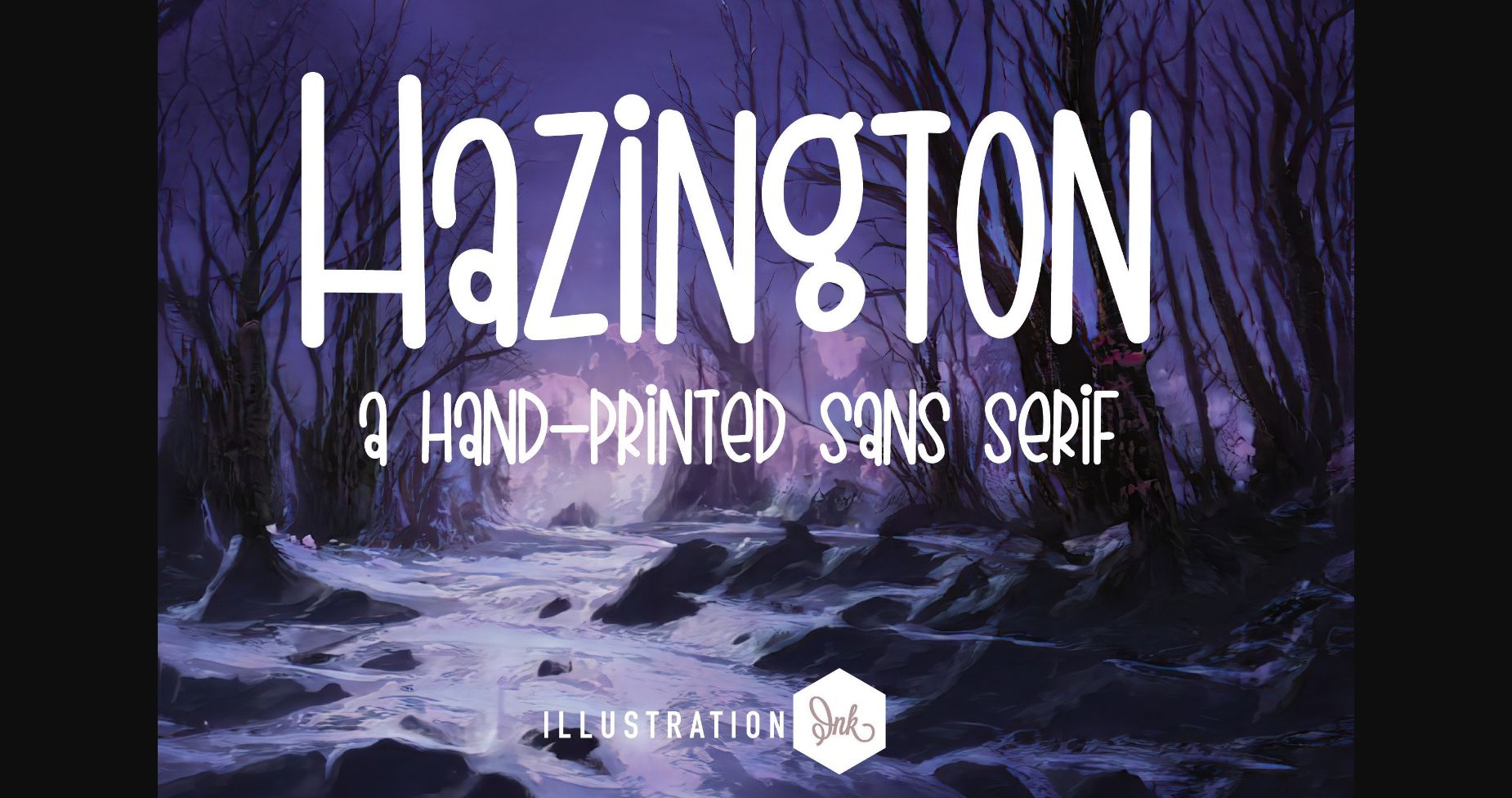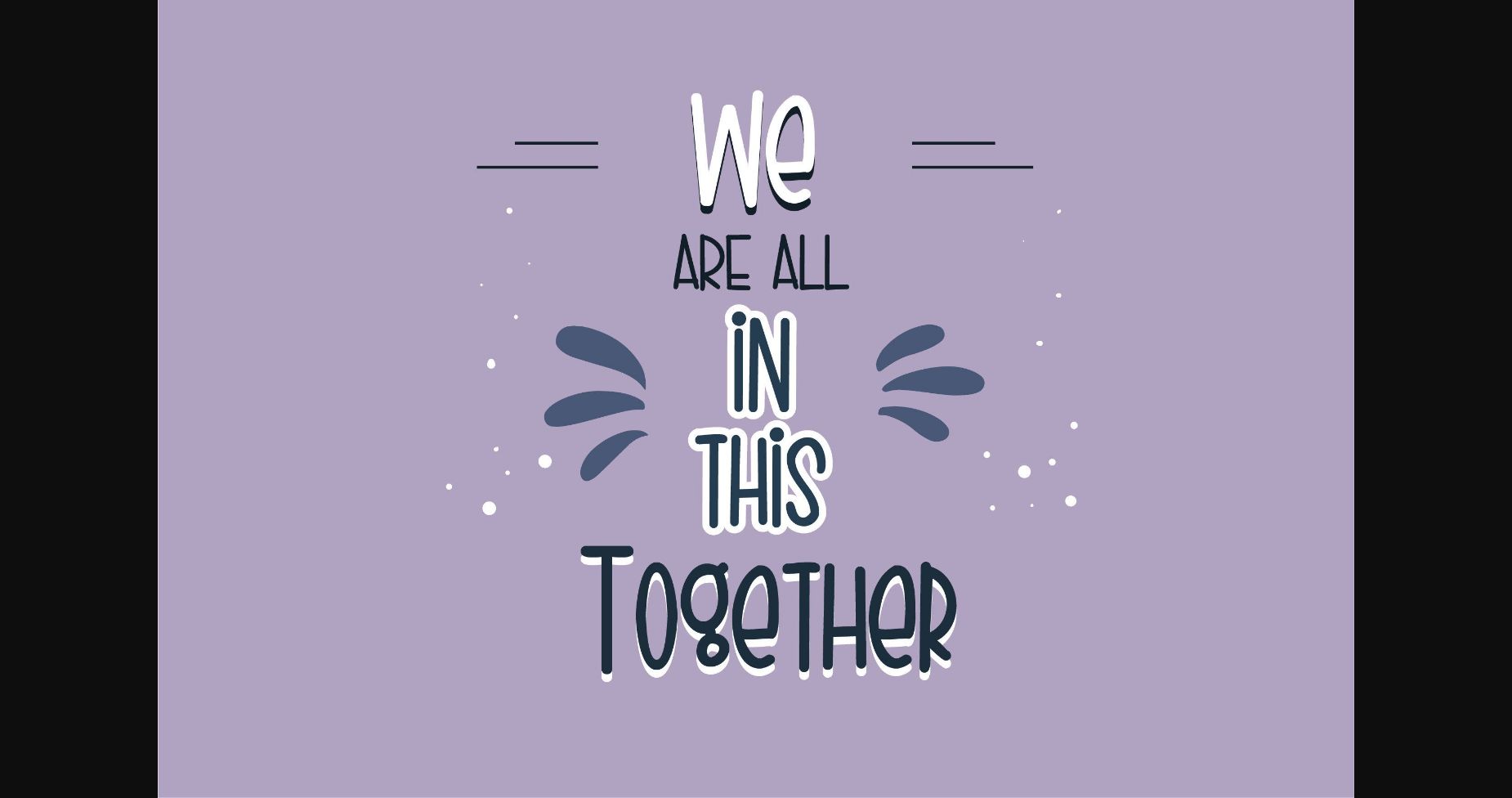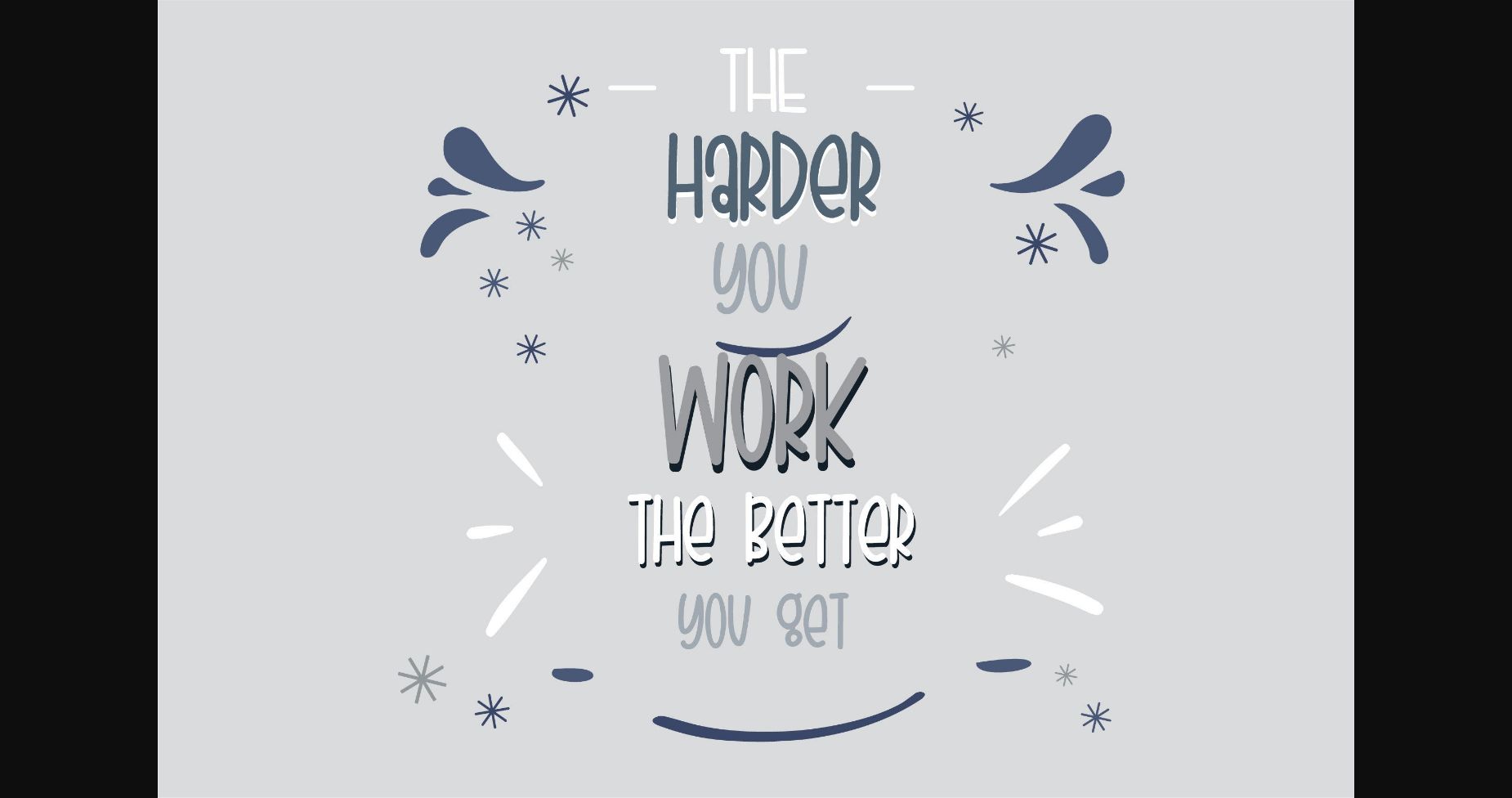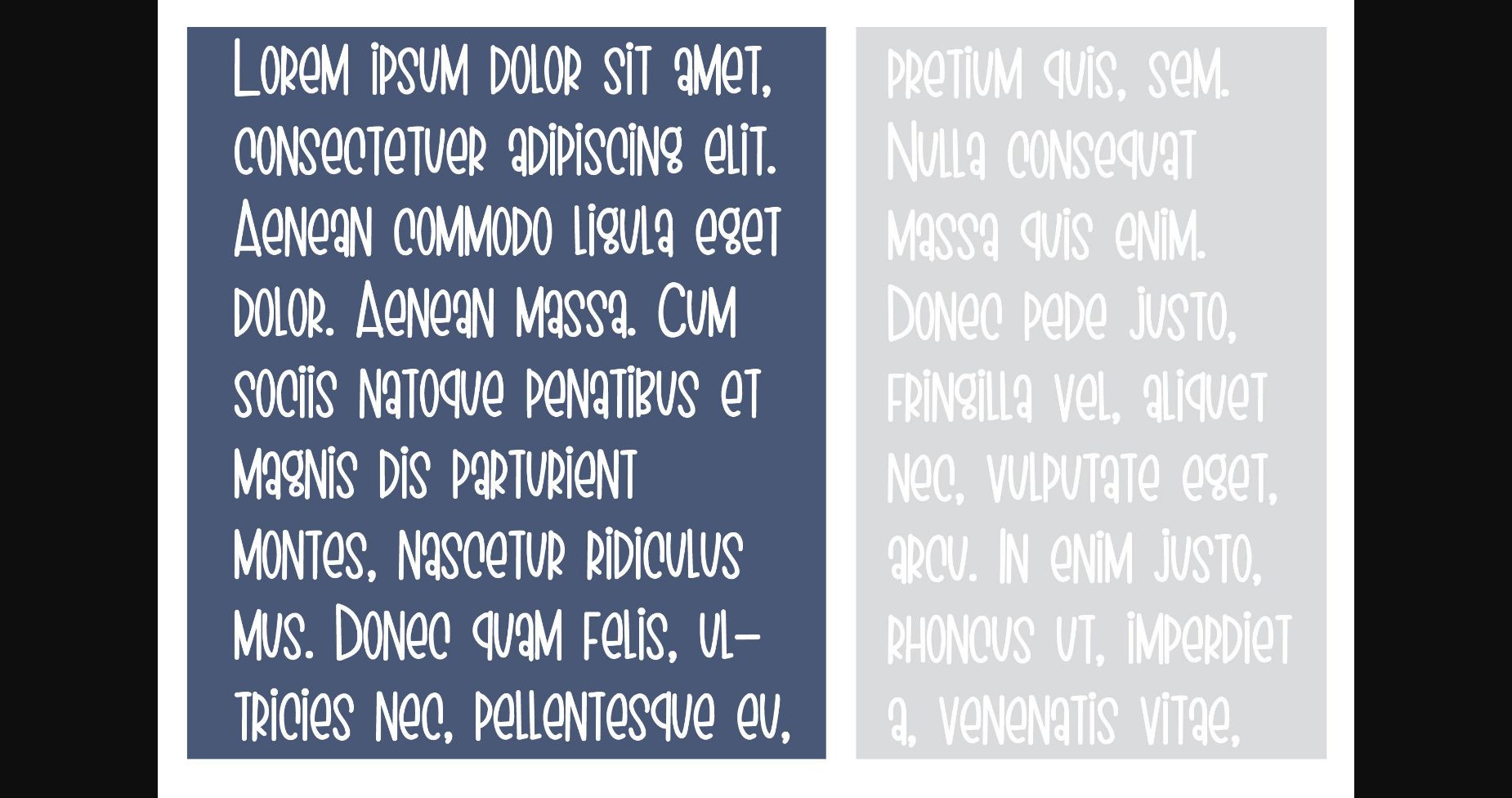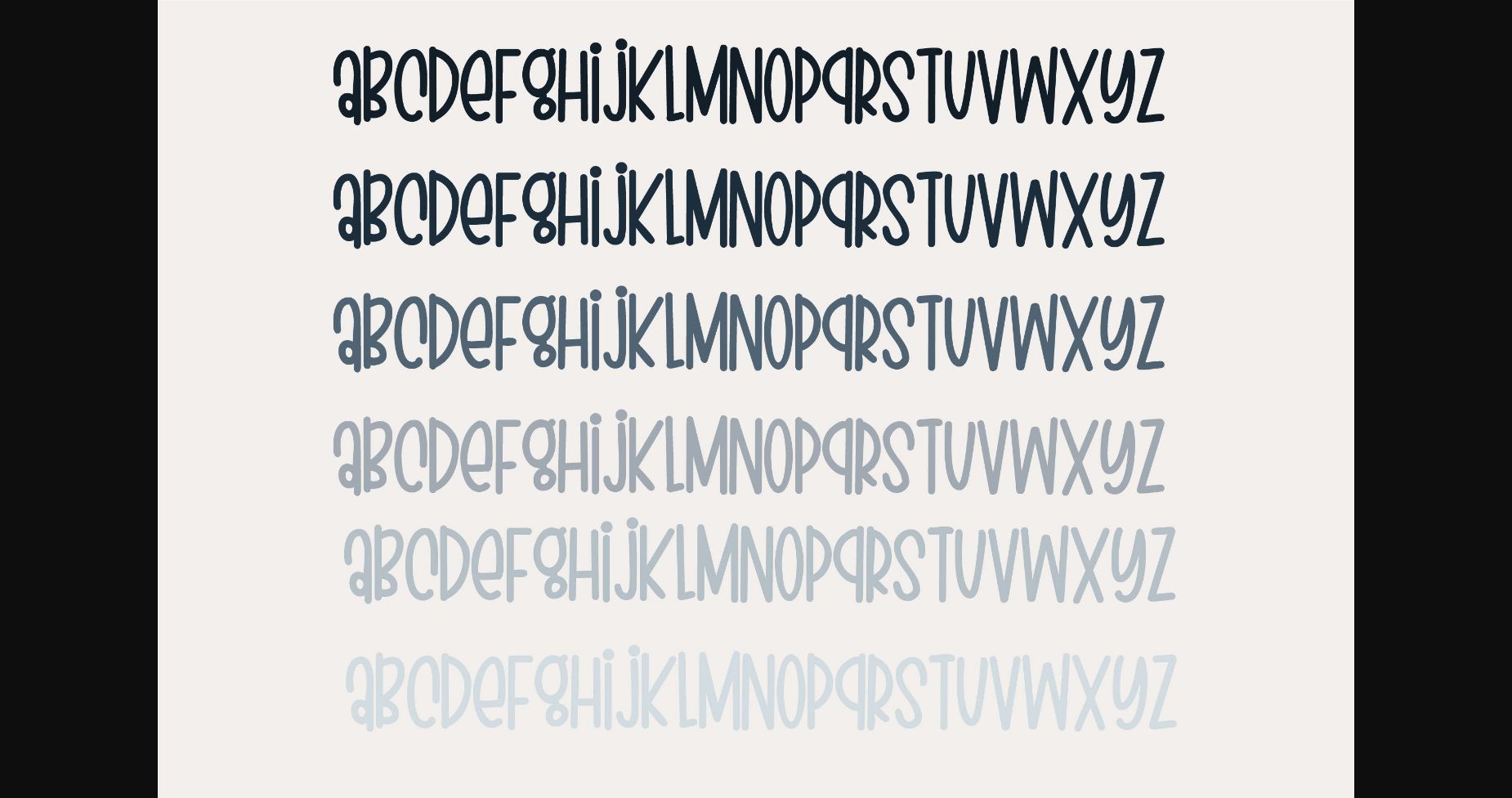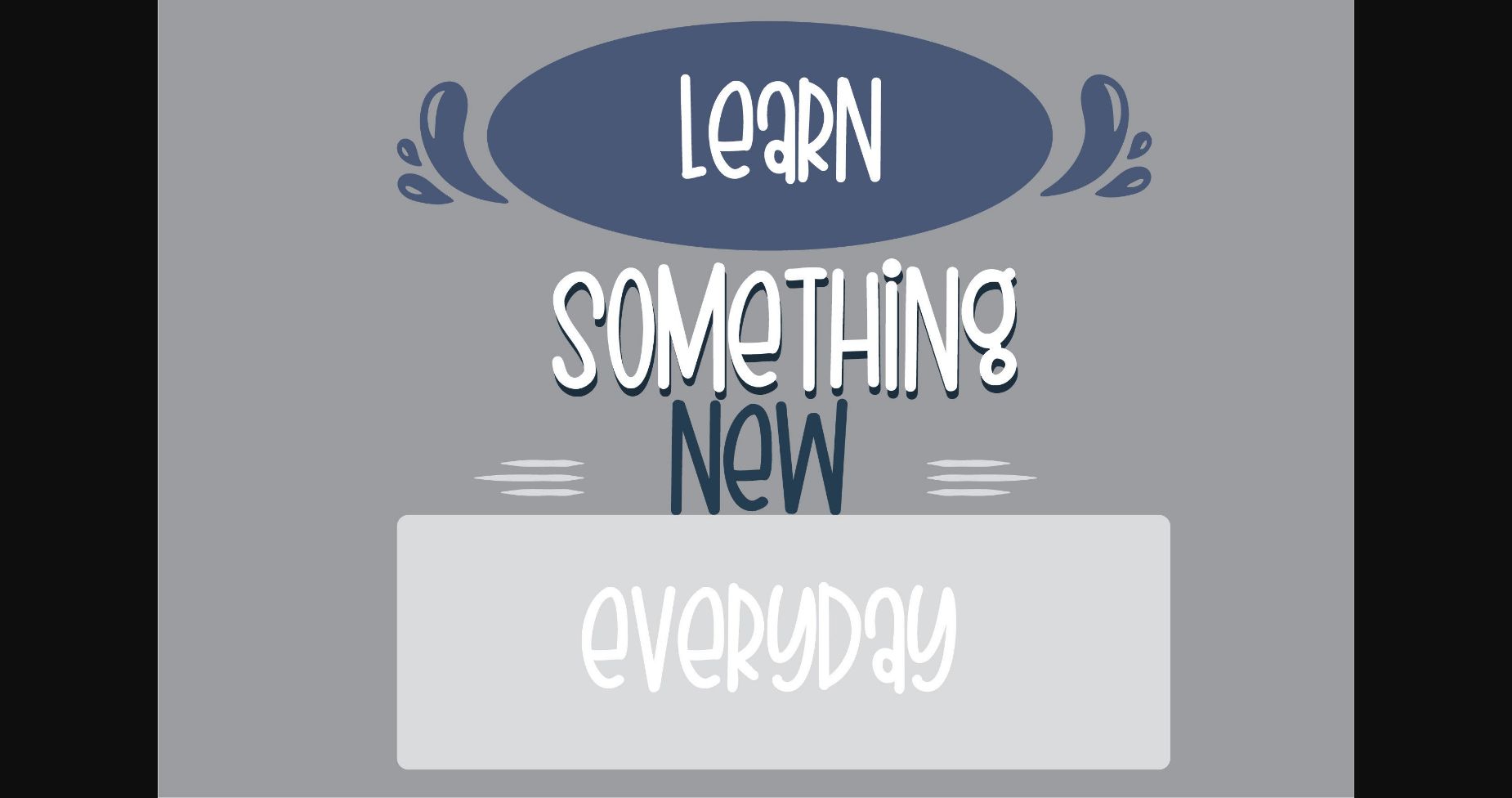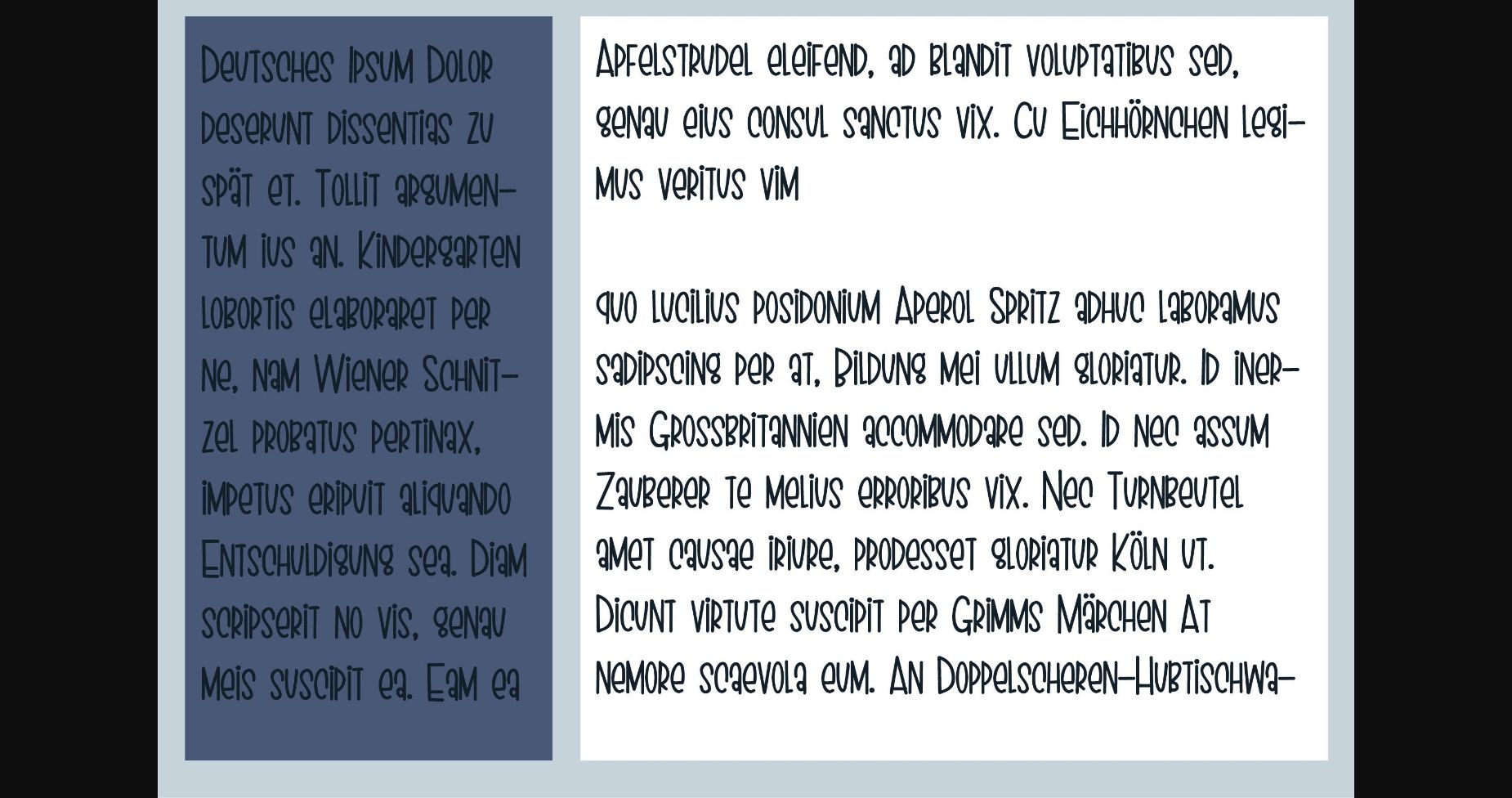
HomeSans Serif FontsHazington Font Sans Serif Fonts Hazington Font FacebookTwitterPinterestWhatsApp 1 of 9 ... Hazington Font Poster 2... Hazington Font Poster 3... Hazington Font Poster 4... Hazington Font Poster 5... Hazington Font Poster 6... Hazington Font Poster 7... Hazington Font Poster 8... Hazington Font Poster 9... About Hazington Font This simple hand-written sans serif is a casual and very youthful print with no descenders. It features quirky characters and an original look, perfect for your most creative ideas! DOWNLOAD NOW 111 0 People also explored Night Visions Font Milady Font Faust Text Sancory Font Anthurium Font Spring Onion Font Mechanical Font Winter Soul Font Karl Geoff Font Seathera Font Chamos Font Doggie Bag Script TagsHazington Font Previous articleTanaka FontNext articleLongmire Font LEAVE A REPLY Cancel reply Comment: Please enter your comment! Name:* Please enter your name here Email:* You have entered an incorrect email address! Please enter your email address here Website: Save my name, email, and website in this browser for the next time I comment. Unlock Endless Creativity with the FREE September Clipart Huge Bundle (Valued at $700!) Personal Use Free Happy Rabbit Personal Use Free Read more Loving You Personal Use Free Read more Leorio Personal Use Free Read more Round Geometric Personal Use Free Read more BLOG Using Fonts in Digital Marketing: Tips to Strengthen Your Brand Identity In the realm of digital marketing, every visual element plays a crucial role in shaping a brand's identity, and fonts are no exception. The... Exploring Font Trends Free Fonts Risk: Why Free Fonts Can Be Dangerous for Designers Top 7 Google Fonts Alternatives for Faster and Privacy-Friendly Web Design (2025)